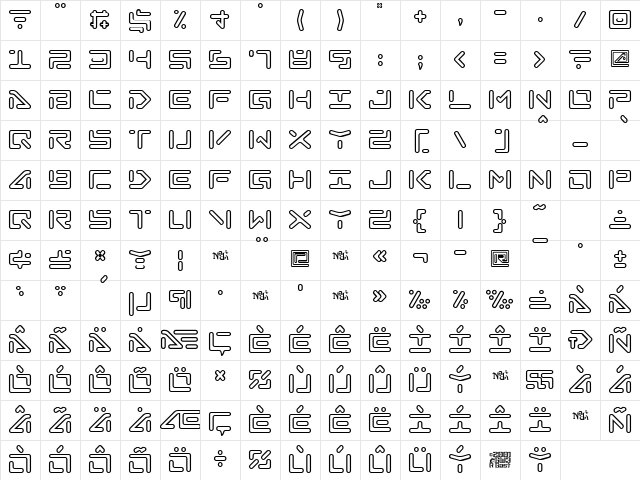
Complete Abduction II Regular glyph index. Displaying only characters natively supported by Abduction II Regular font.
Abduction II is a composed and adaptable typeface that performs quietly and consistently across a wide range of design contexts.